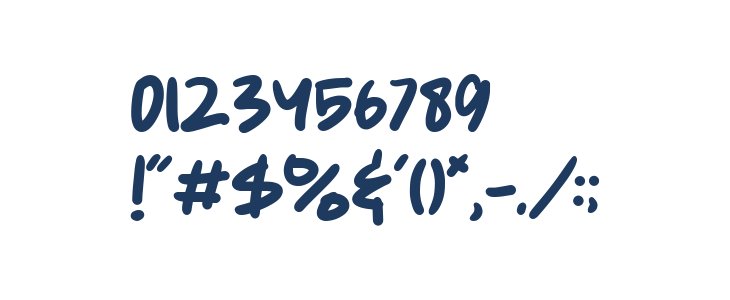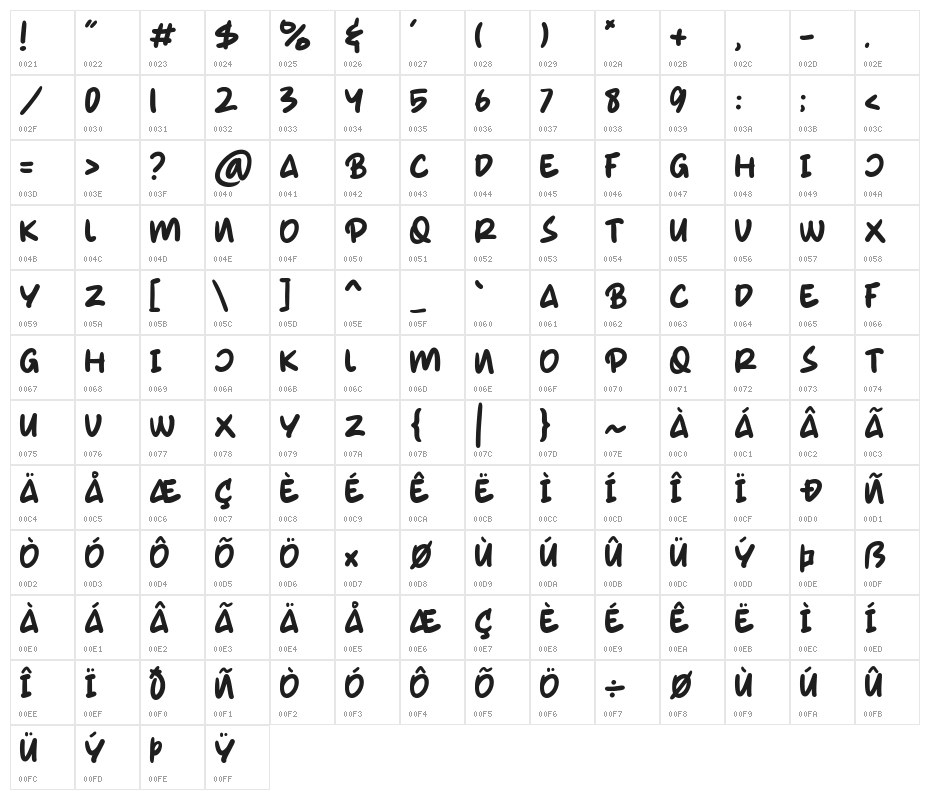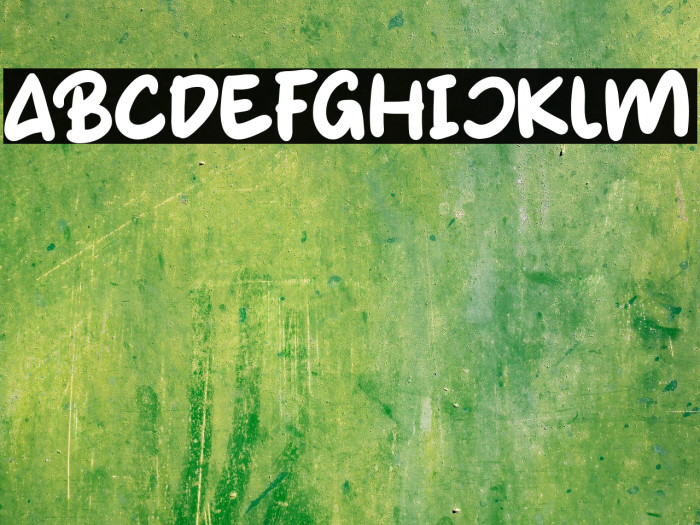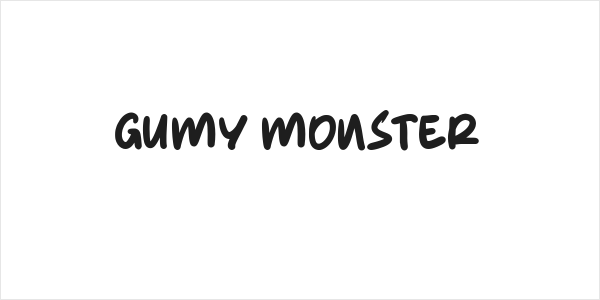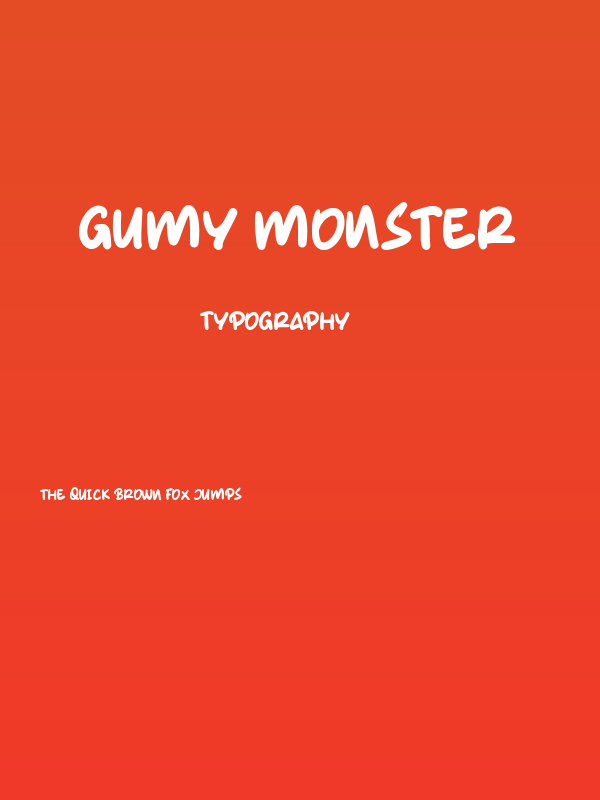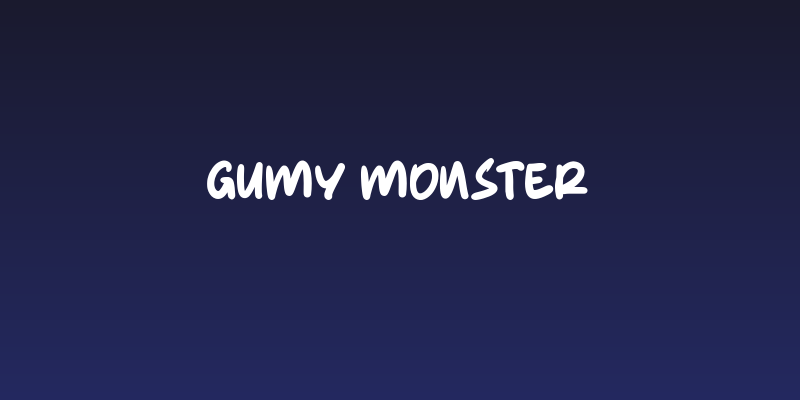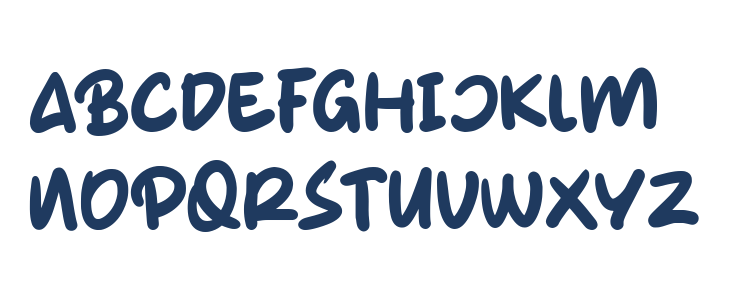
Gumy Monster Font
Gumy Monster Description
This playful and bold font features a handwritten style with rounded edges and a slightly irregular baseline, giving it a casual and friendly appearance. The characters are thick and substantial, making them highly legible and impactful. The font's whimsical nature is emphasized by its unique character shapes, which include a mix of straight and curved lines. This font is perfect for projects that require a fun and approachable aesthetic, such as children's books, playful branding, or creative posters. Its boldness ensures that it stands out, while the rounded forms maintain a soft and inviting feel.
| Proposed Projects | Ideal for children's books, playful branding, creative posters, and any project needing a fun, approachable aesthetic. |